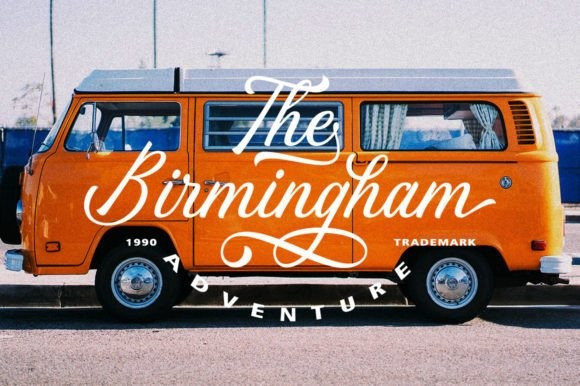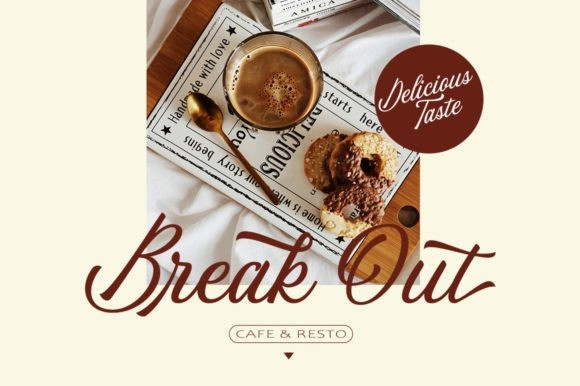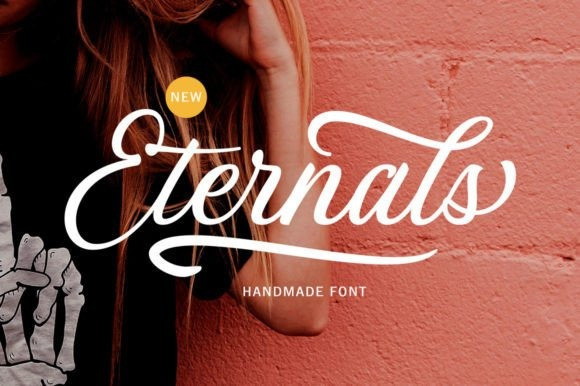
Eternals Script Font
Eternals Script Font – Modern Calligraphy Font With Handwriting Characteristics. A blend of elegance and sophistication, this font gives a very distinct note to your printed cards, invitations, and promotions. Plus, it’s fantastic for packaging and clothing, as well as for any project that calls for charm and style.